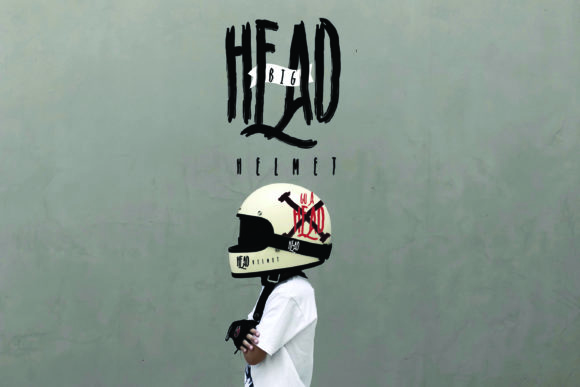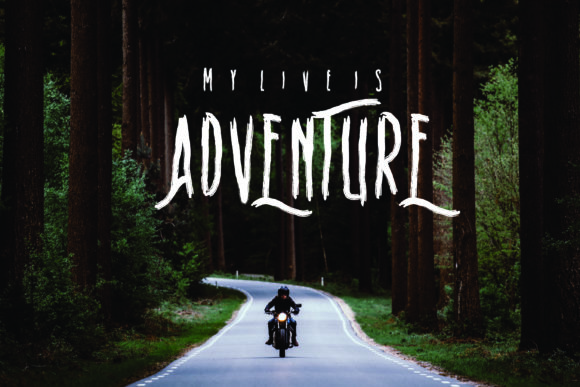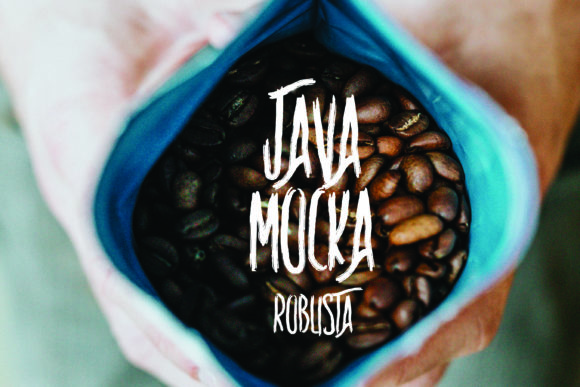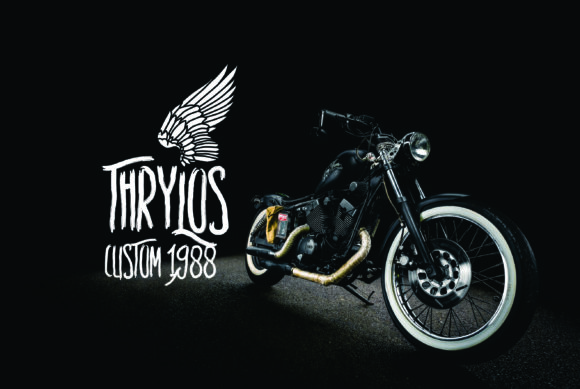
Introducing the Flat Tracker Font: A Motorbike-Inspired Design Marvel
Are you a designer, craftor, or enthusiast looking for a unique and versatile font to elevate your projects? Look no further than the Flat Tracker Font, a motorbike-inspired typeface that’s perfect for a wide range of applications. In this article, we’ll dive into the world of Flat Tracker, exploring its features, uses, and benefits, as well as provide tips and inspiration for incorporating it into your designs.
The Inspiration Behind Flat Tracker
The Flat Tracker Font draws its inspiration from the world of motorbikes, specifically the flat track racing scene. This font is designed to evoke the spirit of speed, adventure, and rebellion that comes with the territory. With its rugged, bold, and dynamic aesthetic, Flat Tracker is sure to add a touch of edginess to any design project.
Key Features of Flat Tracker Font
- Motorbike-inspired design: Flat Tracker’s unique design is inspired by the world of motorbikes, making it perfect for projects that require a bold and adventurous look.
- Versatile and flexible: This font is suitable for a wide range of applications, from logos and branding to posters, flyers, and more.
- Easy to read: Despite its bold and rugged design, Flat Tracker is surprisingly easy to read, making it perfect for use in body text, headings, and titles.
- Highly customizable: With its wide range of weights, styles, and alternates, Flat Tracker can be tailored to suit any design project’s needs.
Uses for Flat Tracker Font
So, what can you use the Flat Tracker Font for? The possibilities are endless! Here are a few ideas to get you started:
- Logos and branding: Create a bold and memorable logo for your business or project with Flat Tracker.
- Posters and flyers: Use Flat Tracker to create eye-catching posters and flyers for events, promotions, or announcements.
- Social media graphics: Add a touch of personality to your social media graphics with Flat Tracker’s unique design.
- Packaging and labels: Use Flat Tracker to create bold and eye-catching packaging and labels for products.
Tips for Using Flat Tracker Font
Here are a few tips for getting the most out of Flat Tracker:
- Experiment with different weights and styles: Flat Tracker comes in a range of weights and styles, so don’t be afraid to experiment to find the perfect look for your project.
- Pair with complementary fonts: Flat Tracker pairs well with a range of fonts, so try pairing it with complementary fonts to create visual interest.
- Use it sparingly: While Flat Tracker is a versatile font, it’s best used sparingly to avoid overwhelming the design.
Inspiration and Examples
Need some inspiration for using Flat Tracker? Here are a few examples of how this font can be used in different design projects:
- Motorbike brand logo: Use Flat Tracker to create a bold and memorable logo for a motorbike brand or accessory company.
- Event poster: Create an eye-catching poster for a music festival or event with Flat Tracker’s bold and adventurous design.
- Social media graphic: Use Flat Tracker to create a bold and eye-catching social media graphic for a business or project.
In conclusion, the Flat Tracker Font is a versatile and dynamic typeface that’s perfect for designers, craftors, and enthusiasts looking to add a touch of edginess to their projects. With its motorbike-inspired design, flexible and customizable features, and wide range of uses, Flat Tracker is sure to become a go-to font in any designer’s toolkit.